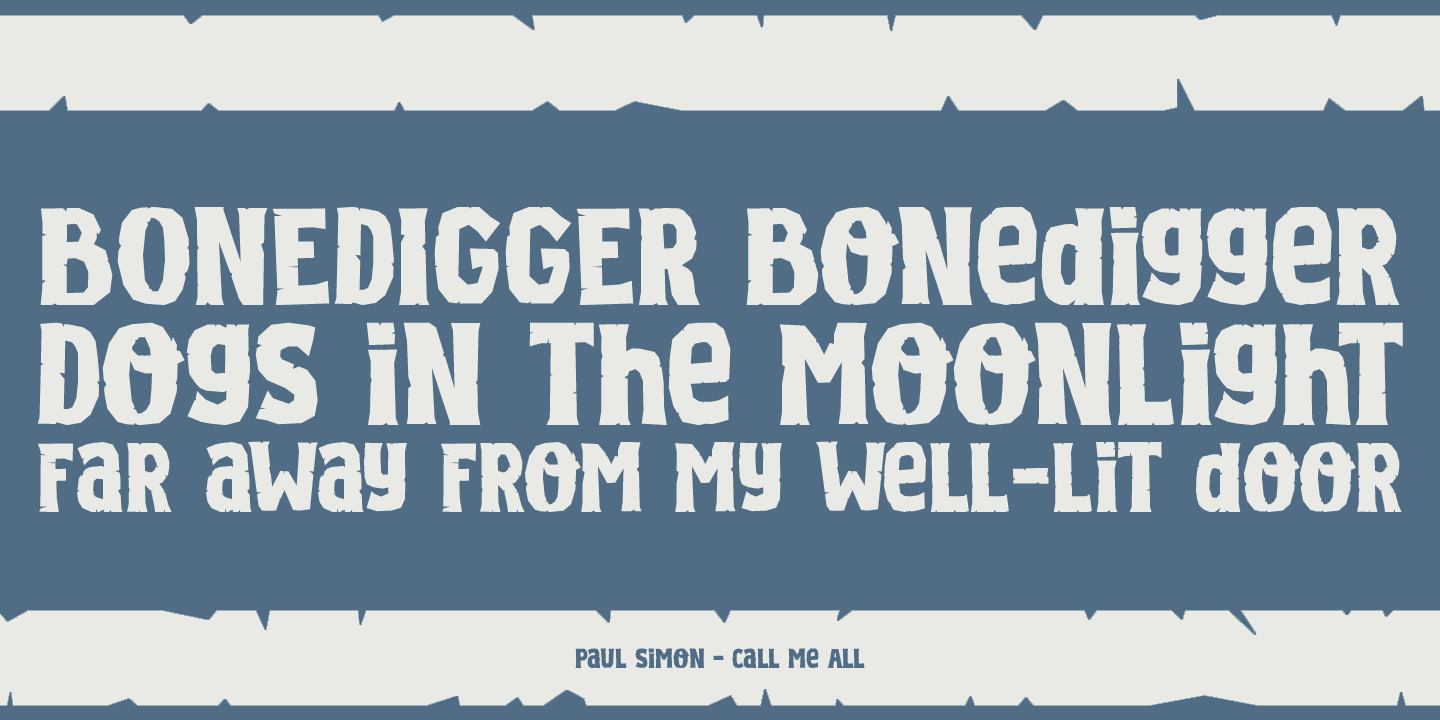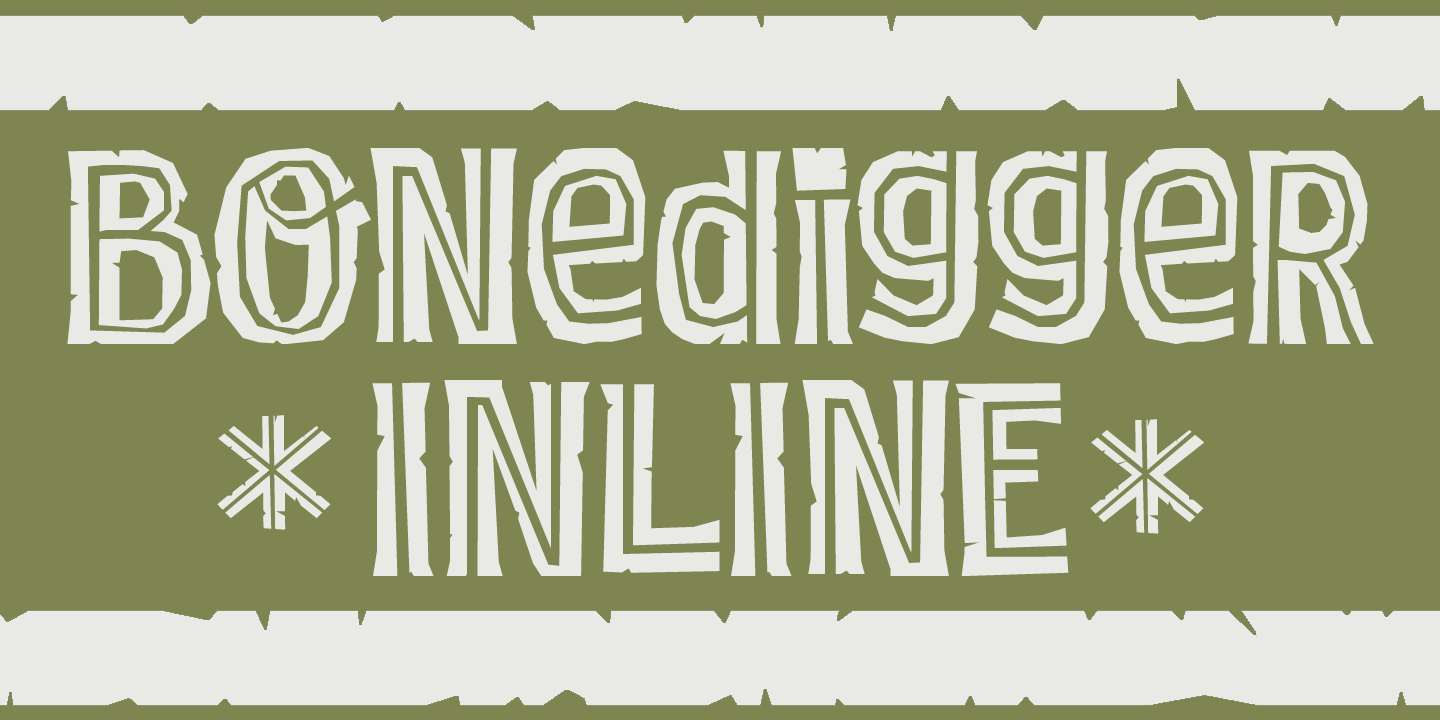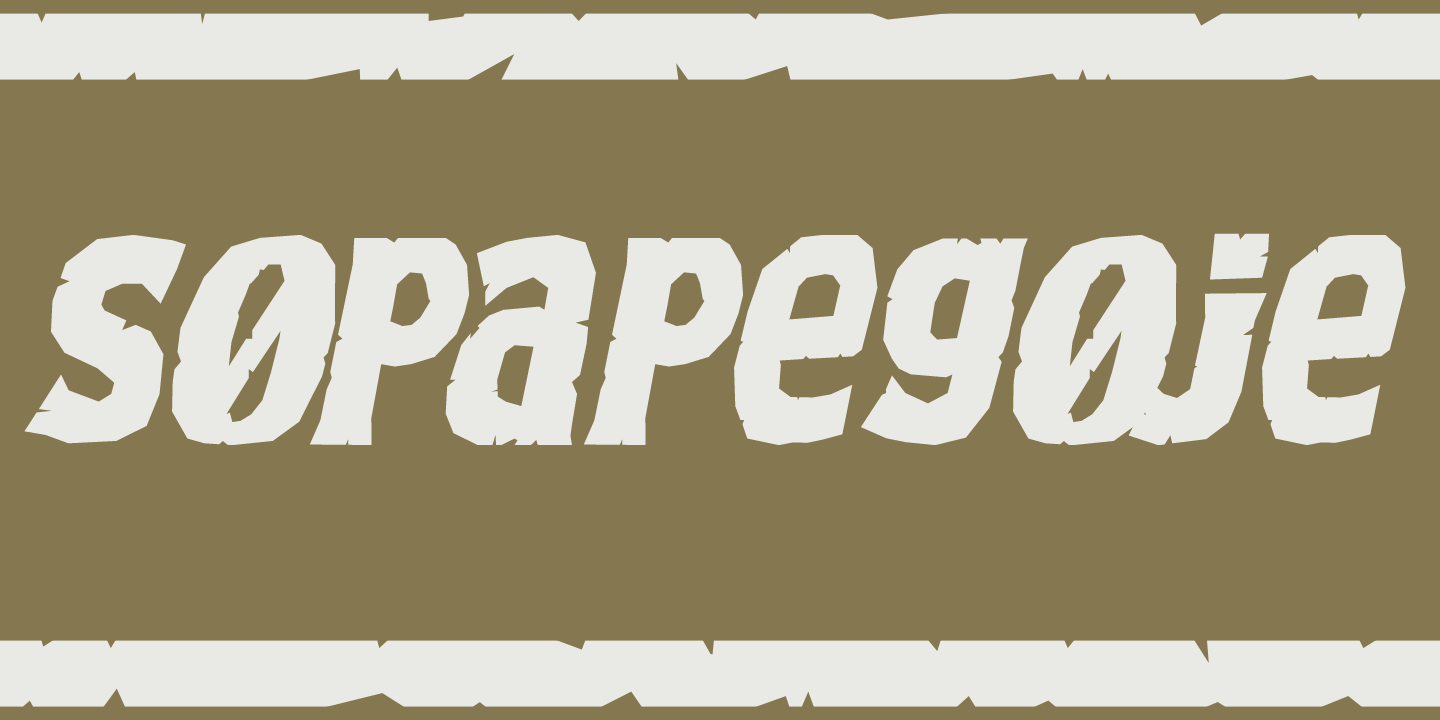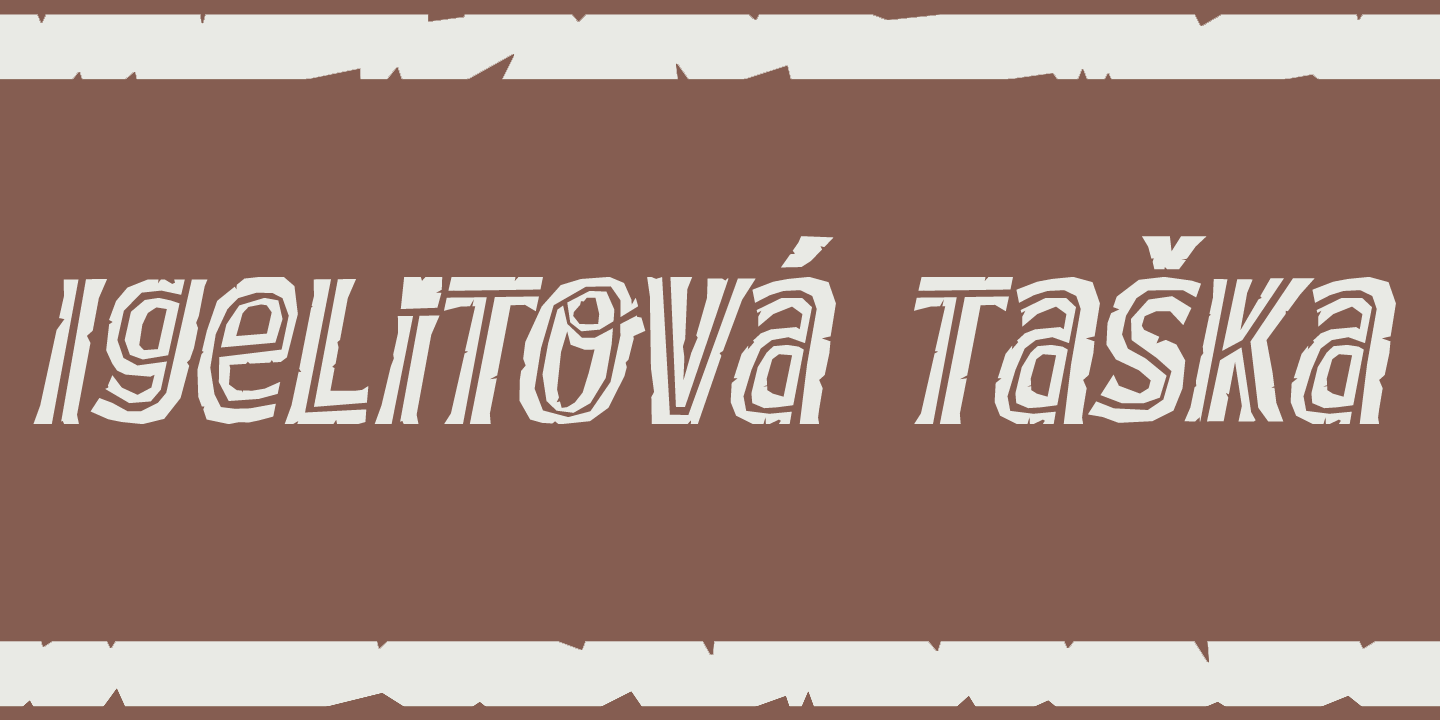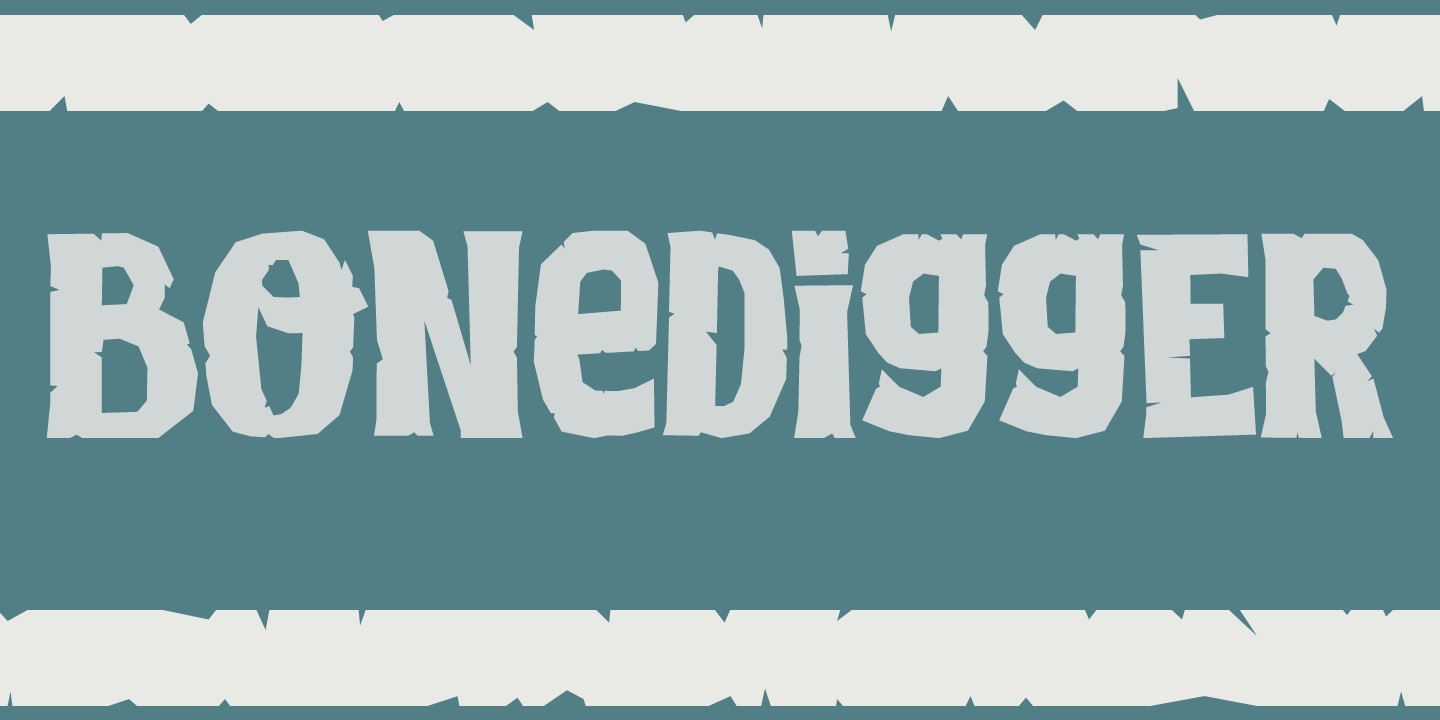
About Bonedigger
For some reason I had Paul Simon's song ?You Can Call Me All? in my head when I was busy working on this font, so I just had to call it Bonedigger. Bonedigger does not dig bones, but it does have ?heavy bones?, as it is quite big. Bonedigger is seriously…